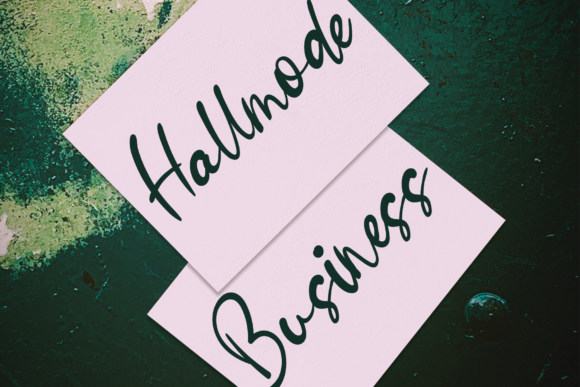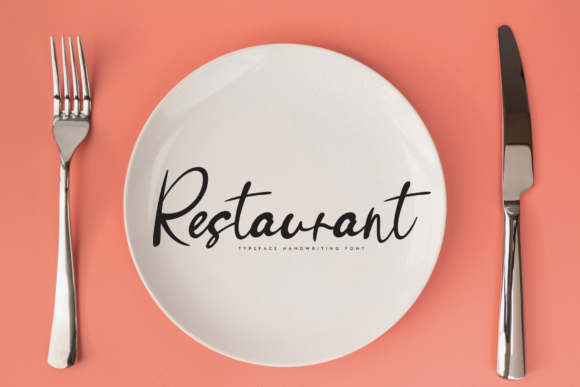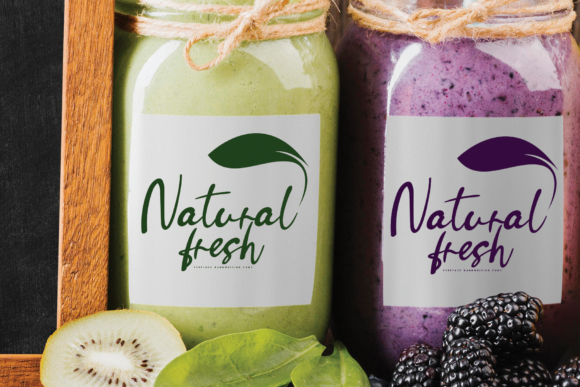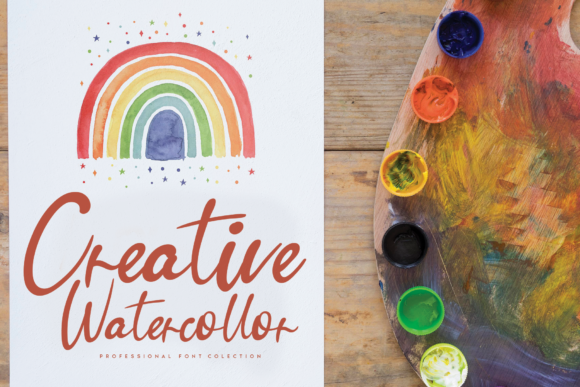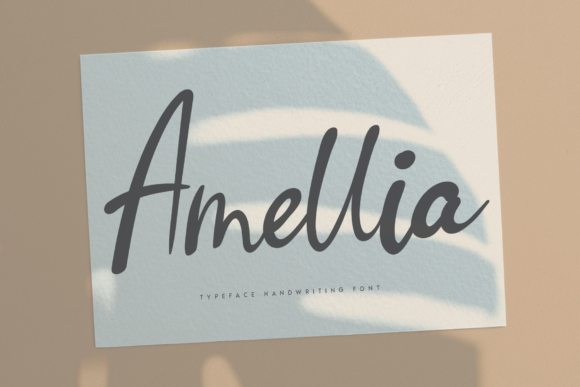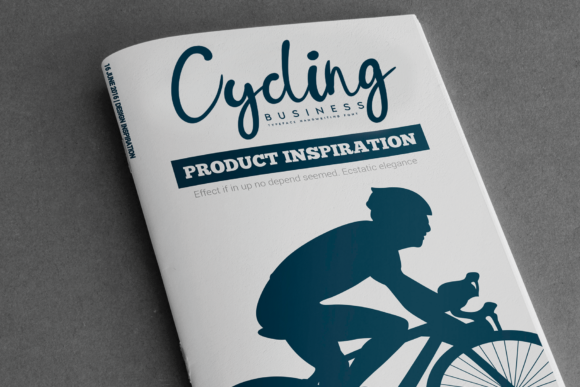
Bellmetta Font: Elevate Your Designs with Elegance and Sophistication
In the world of typography, few fonts manage to capture the essence of elegance and sophistication as effortlessly as Bellmetta. This stunning flowing handwritten font is designed to add a touch of class to your favorite projects, making it a must-have for designers and crafters alike. With its incredibly distinct and timeless style, Bellmetta is poised to become your go-to font for creating spectacular designs that leave a lasting impression.
The Charm of Bellmetta
Bellmetta’s charm lies in its elegant touch, which sets it apart from more mundane fonts. Its flowing lines and curves are meticulously crafted to evoke a sense of luxury and refinement, making it perfect for projects that demand a high level of sophistication. Whether you’re working on a branding project, packaging design, or simply looking to add some flair to your digital content, Bellmetta is the ideal choice.
Key Features of Bellmetta Font
- Elegant and Sophisticated Design: Bellmetta’s design is characterized by its elegant and sophisticated style, making it perfect for projects that require a touch of luxury.
- PUA Encoded: This font is PUA (Private Use Area) encoded, which means you can access all the glyphs and swashes with ease. This feature makes it incredibly user-friendly, allowing you to focus on your design without getting bogged down in technicalities.
- Distinct and Timeless Style: Bellmetta’s style is incredibly distinct and timeless, ensuring that your designs will remain relevant for years to come.
- Versatile: This font is versatile and can be used for a wide range of projects, from branding and advertising to packaging and digital content.
Why Choose Bellmetta?
There are many fonts available in the market, but Bellmetta stands out for several reasons:
- Unique Design: Bellmetta’s design is unique and unlike any other font. Its elegant lines and curves make it perfect for projects that demand a high level of sophistication.
- Easy to Use: The font is PUA encoded, making it easy to access all the glyphs and swashes. This feature saves you time and effort, allowing you to focus on your design.
- High-Quality: Bellmetta is a high-quality font that is designed to deliver exceptional results. Its clear and crisp lines ensure that your designs look professional and polished.
How to Use Bellmetta Font
Using Bellmetta font is easy and straightforward. Here are a few tips to get you started:
- Pair it with Other Fonts: Bellmetta pairs well with other fonts, making it easy to create stunning combinations. Experiment with different pairings to find the one that works best for your project.
- Experiment with Swashes: The font comes with a range of swashes that can add a touch of elegance to your designs. Experiment with different swashes to find the one that works best for your project.
- Use it for Headings and Titles: Bellmetta is perfect for headings and titles. Its elegant lines and curves make it easy to read and understand, even at small sizes.
In conclusion, Bellmetta font is a stunning addition to any designer’s toolkit. Its elegant and sophisticated design, combined with its ease of use and versatility, make it perfect for a wide range of projects. Whether you’re working on a branding project, packaging design, or simply looking to add some flair to your digital content, Bellmetta is the ideal choice. So why wait? Fall in love with Bellmetta’s incredibly distinct and timeless style and use it to create spectacular designs that leave a lasting impression.